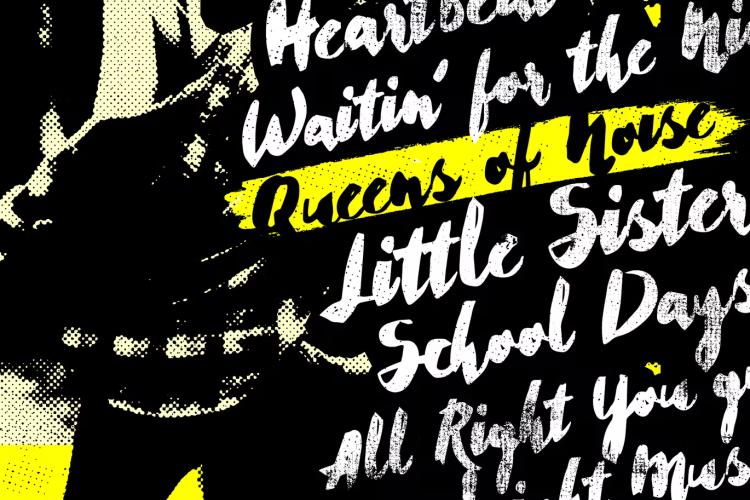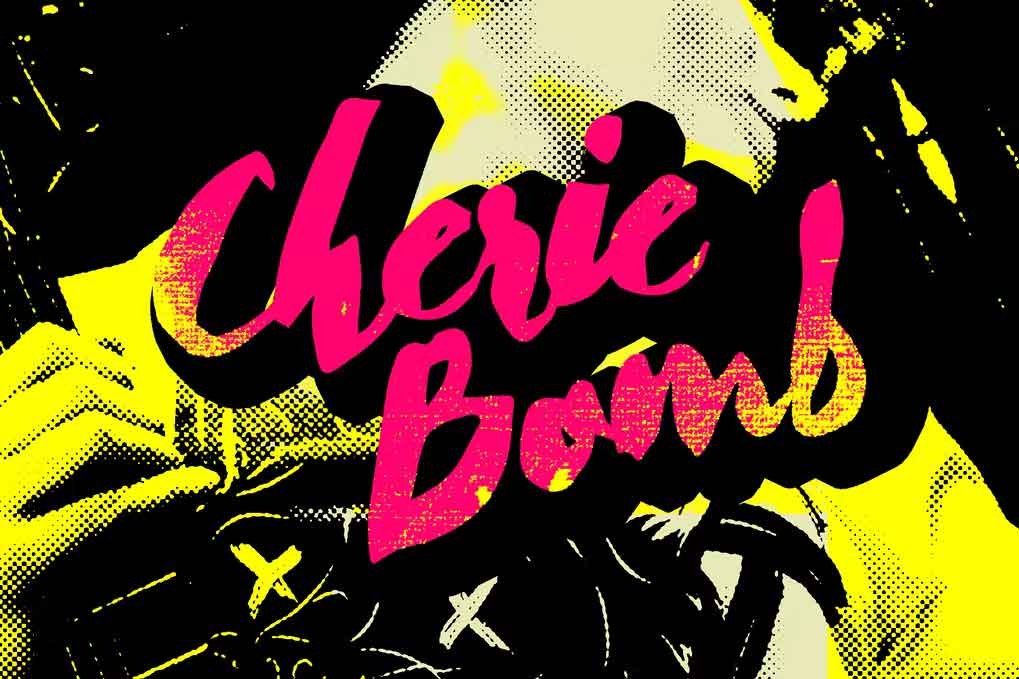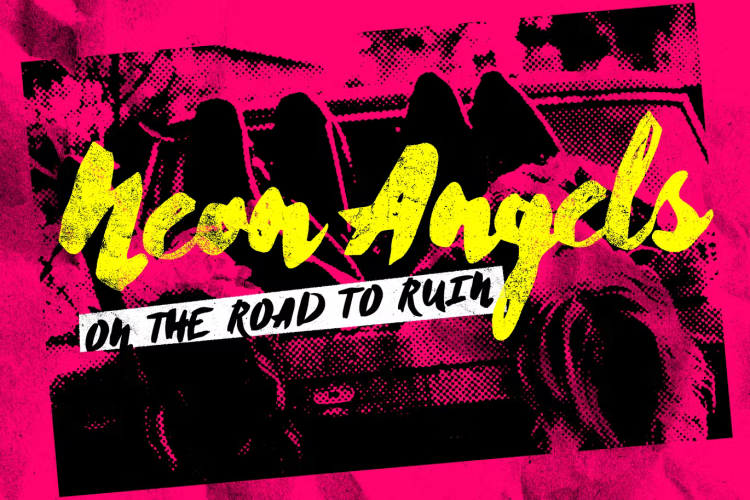
Cherie Bomb Font
Cherie Bomb is a handmade brush font with a punk-rock feeling, but with personality and heart. It will allow you to create stunning hand-lettering quickly and easily.
Cherie Bomb includes over 350 characters, uppercase and lowercase, basic punctuation, numerals and works great with a lot of international languages besides english.
Cherie Bomb Font brings a personal, handwritten warmth to invitations, menus and place cards.
Craft brands — coffee, cosmetics, bakery — use scripts like Cherie Bomb Font for signature-style logos and labels.
Pair Cherie Bomb Font with a plain sans for quotes, stories and Pinterest pins that feel handmade.
Cherie Bomb Font is a Script And Handwritten typeface tagged Brush, Handwritten, Professional, Script. It works well for headlines, logos, posters, social media graphics and branding projects that need a distinctive script and handwritten look.